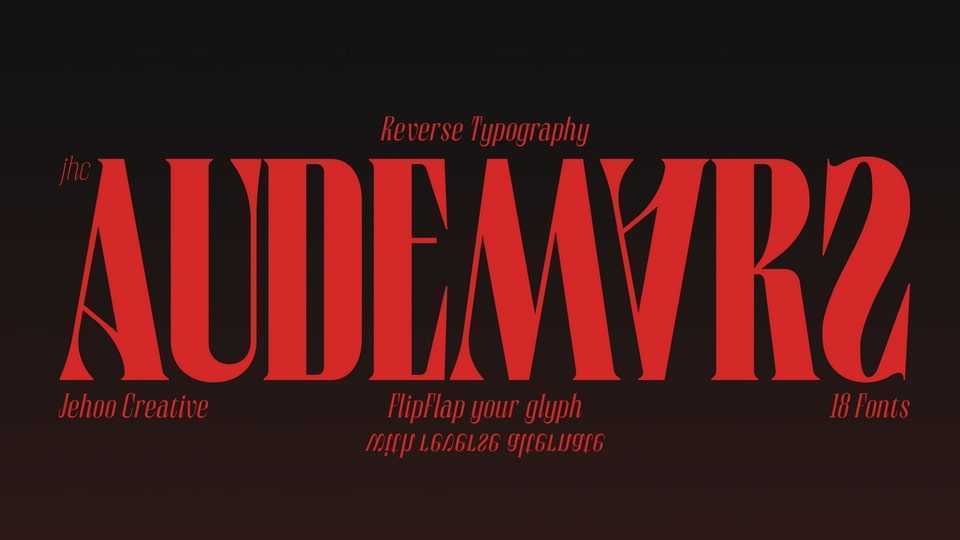
Download JHC Audemars font, an impeccably crafted condensed serif typeface exuding a resolute and refined character. Distinguished by its unique inverted letter shapes, this font embraces an avant-garde aesthetic.
Designer: Jehoo Creative